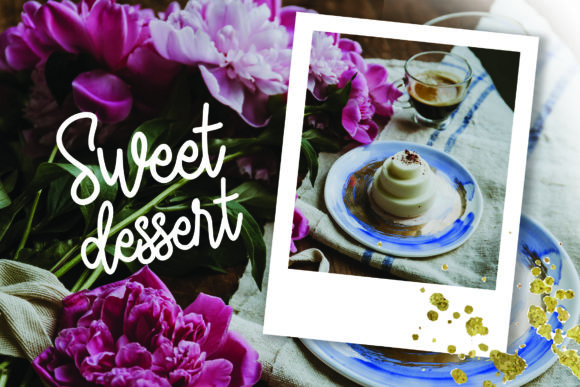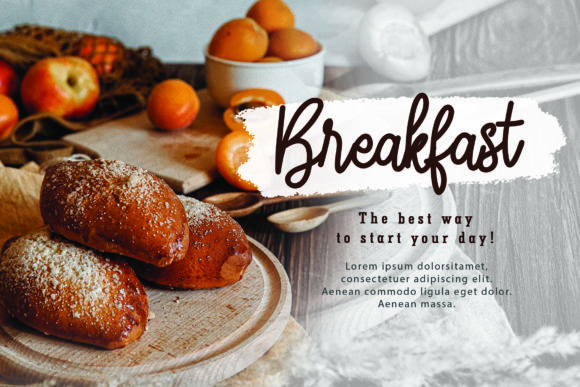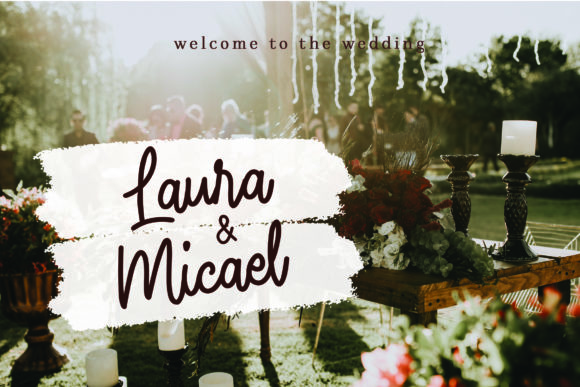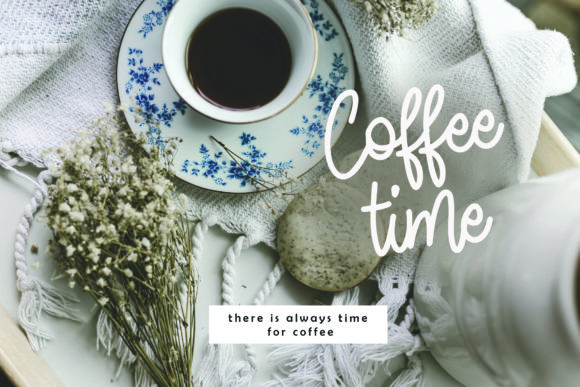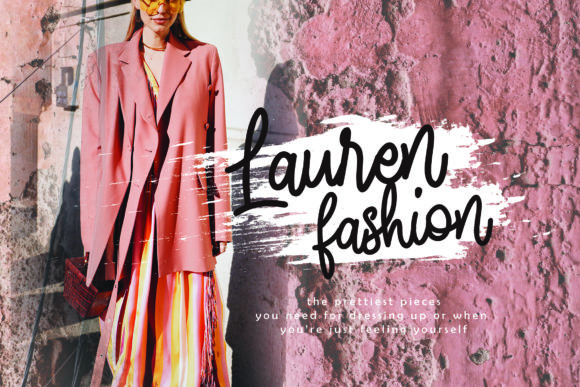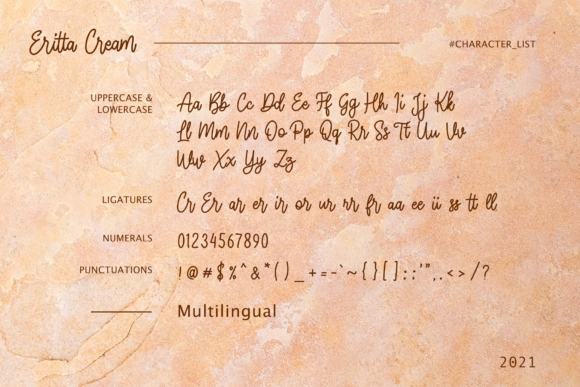
Eritta Cream Font: Elevate Your Designs with a Touch of Elegance
In the world of typography, a font can make or break a design. For designers and crafters looking to add a dash of sophistication and charm to their projects, Eritta Cream Font is an excellent choice. This stunning script font is designed to bring a tasteful, radiant, and sweet touch to any design, making it a versatile and valuable addition to your typographic arsenal.
What Makes Eritta Cream Font Stand Out?
Eritta Cream is not just another script font; it’s a masterpiece of typographic design. Here are some features that set it apart:
- Beautifully Balanced Characters: Each character in Eritta Cream is meticulously crafted to ensure balance and harmony, making it suitable for a wide range of design applications.
- Varying Baseline: The font features a varying baseline that adds a dynamic and organic feel to your text, making it more engaging and visually appealing.
- Smooth Lines: The smooth, flowing lines of Eritta Cream give it a luxurious and elegant appearance, perfect for designs that require a touch of sophistication.
- Gorgeous Glyphs: With an impressive collection of glyphs, Eritta Cream offers designers the flexibility to create unique and captivating text arrangements.
- Stunning Alternates: The font includes stunning alternate characters, allowing for greater creative freedom and the ability to add a personal touch to your designs.
Why Choose Eritta Cream Font?
For designers and crafters, selecting the right font can be a daunting task. Here are several reasons why Eritta Cream Font should be at the top of your list:
- Versatility: Its elegant and adaptable nature makes Eritta Cream suitable for a variety of design projects, from branding and advertising to packaging and digital content.
- Readability: Despite its decorative nature, Eritta Cream maintains a high level of readability, ensuring that your message is conveyed clearly and effectively.
- Uniqueness: In a sea of generic fonts, Eritta Cream stands out with its distinctive style, helping your designs to grab attention and leave a lasting impression.
Using Eritta Cream Font in Your Designs
Integrating Eritta Cream into your design workflow is straightforward. Here are some tips to get you started:
- Pair it Wisely: Combine Eritta Cream with complementary fonts to create visual interest and hierarchy in your designs.
- Experiment with Sizes: Don’t be afraid to vary the font size to emphasize certain words or phrases, adding depth and dynamism to your text.
- Play with Colors: Take advantage of Eritta Cream’s elegant lines and curves by using it in conjunction with a range of colors to add personality and flair to your designs.
Eritta Cream Font is a remarkable addition to any designer’s toolkit. Its unique blend of elegance, readability, and versatility makes it an ideal choice for a wide array of projects. Whether you’re a seasoned professional or just starting out, Eritta Cream has the potential to elevate your designs and help you achieve your creative goals. So why wait? Explore the possibilities of Eritta Cream Font today and discover how it can transform your designs.